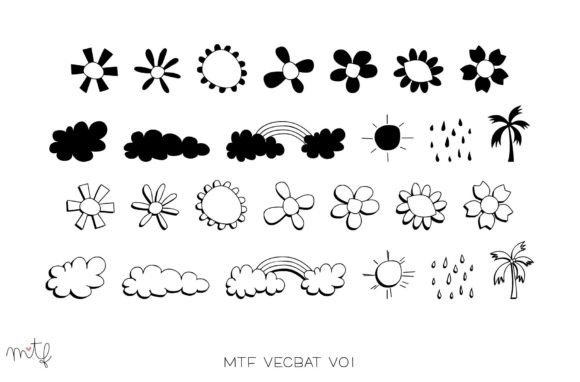
Vecbat Vo1 Font
Introducing “Vecbat Vo1,” a charming dingbats font filled with doodles inspired by nature and the weather. This delightful font is the perfect companion to enhance your friendly products or add dainty and cute accents to your writing.
With “Vecbat Vo1,” you can effortlessly incorporate nature-themed symbols into your designs. This dingbats font features a collection of doodles that represent elements such as trees, flowers, clouds, suns, raindrops, and more. These whimsical symbols can bring a touch of nature’s beauty and the charm of the weather to your creative projects.
Whether you’re designing friendly products, creating invitations, or adding accents to your writing, “Vecbat Vo1” offers a range of doodles that will complement your designs. From adding floral embellishments to your artwork to incorporating clouds and suns into your stationery, this dingbats font allows you to infuse a delightful and playful atmosphere into your creations.
Enhance your friendly products, add a touch of whimsy to your writing, or embellish your artwork with the delightful doodles of “Vecbat Vo1.” These nature and weather-themed symbols will bring a sense of joy and playfulness to your designs, making them even more captivating and inviting.
Let your creativity flourish with “Vecbat Vo1.” Incorporate these cute and dainty dingbats into your projects, and watch as they infuse your designs with a delightful charm. Whether you’re creating greeting cards, illustrating children’s books, or designing nature-inspired logos, “Vecbat Vo1” will add a special touch that sets your work apart.
Enjoy the beauty of nature and the whimsy of the weather with “Vecbat Vo1” and let these delightful doodles bring a smile to your audience.